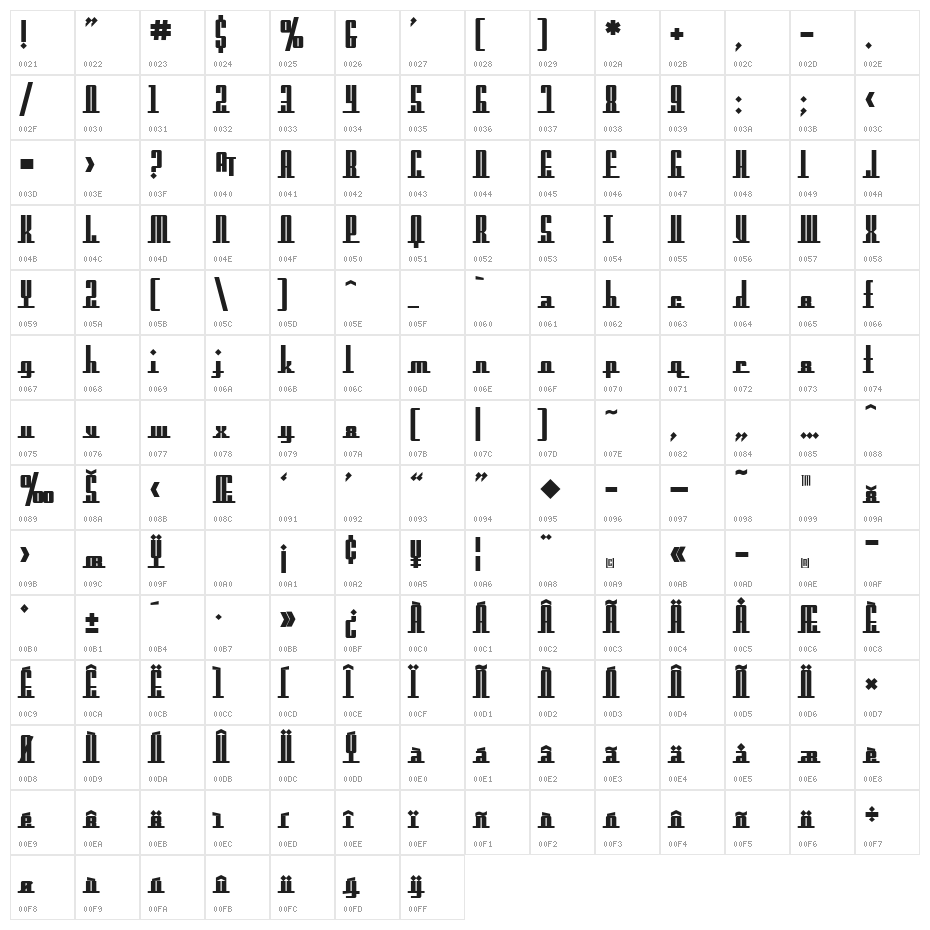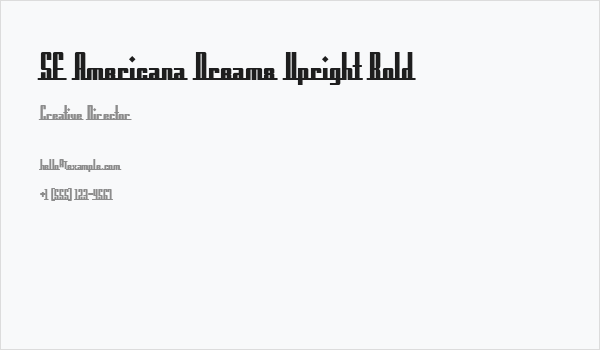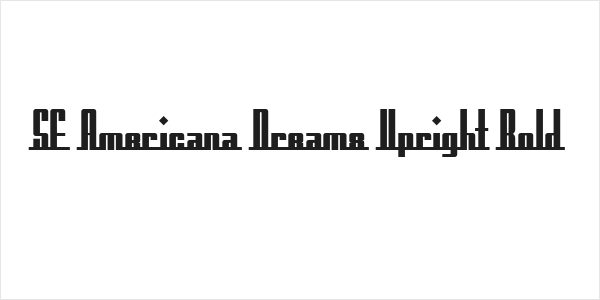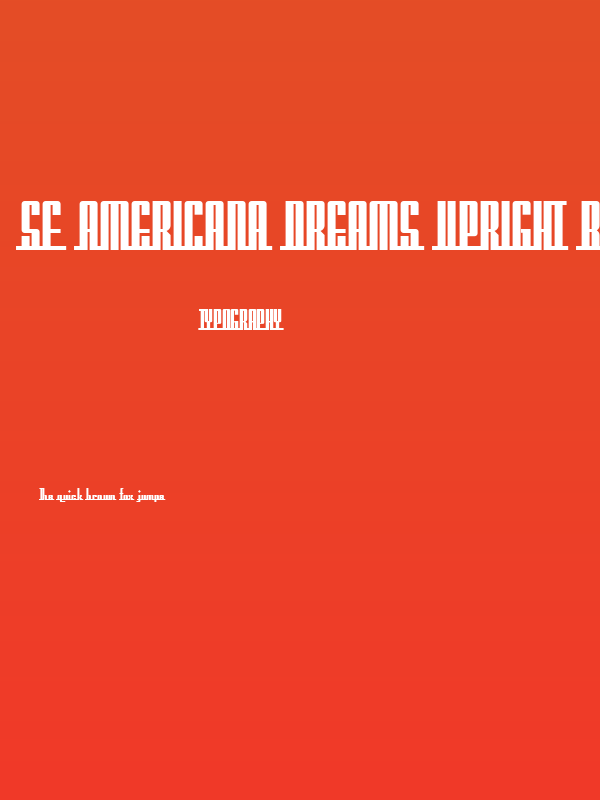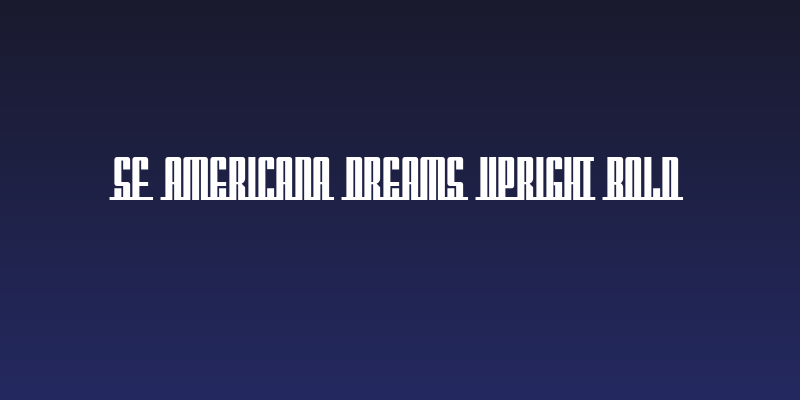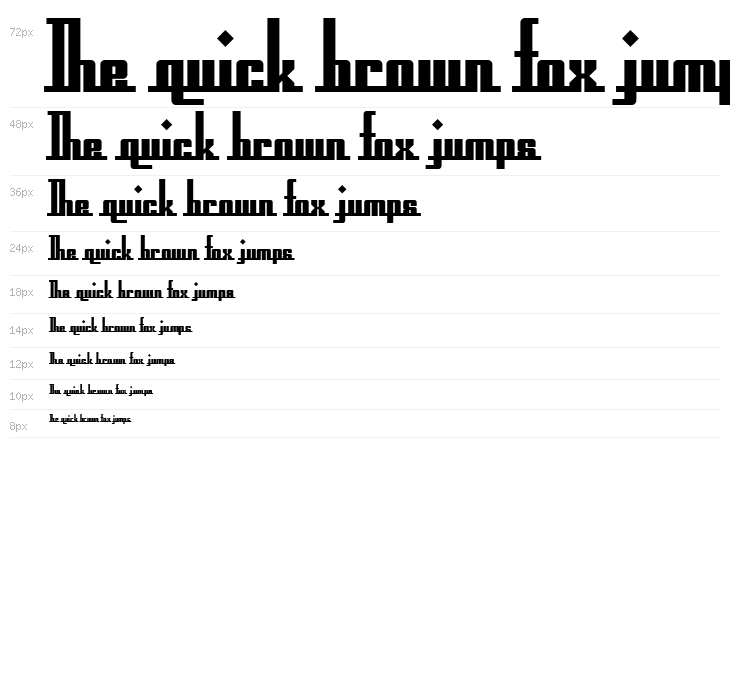
SF Americana Dreams Upright Bold Font
SF Americana Dreams Upright Bold Description
This font features a bold and striking design with a distinctly modern and decorative style. The uppercase letters are tall and narrow, with a uniform width that gives them a strong, impactful presence. The lowercase letters maintain a similar aesthetic, with unique angular elements that add character and flair. The numbers are consistent with the overall design, offering a cohesive look across all characters. Special characters are bold and match the assertive style of the alphabet. The font's high contrast in stroke thickness enhances its visual appeal, making it ideal for attention-grabbing headlines or logos.
| Proposed Projects | Ideal for branding, poster design, headlines, and any project requiring a bold, modern aesthetic. |